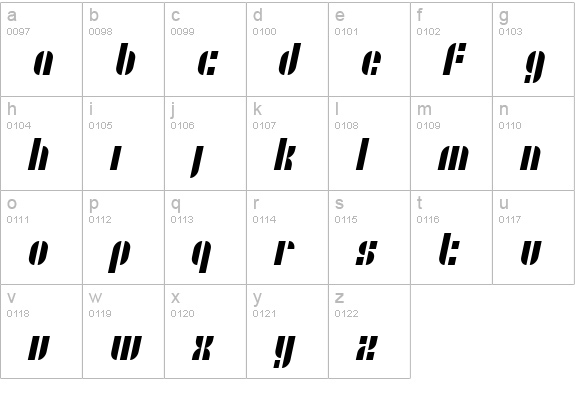
SF RetroSplice Condensed is a distinctive, condensed-width variant in the SF typeface family \xE2\x80\x94 well suited to design and typography projects.
SF RetroSplice Condensed font is a captivating and versatile typeface that effortlessly combines vintage charm with a modern twist. With its condensed design, this font exudes a sense of elegance and sophistication, making it perfect for a wide range of creative projects. The meticulous craftsmanship of SF RetroSplice Condensed font is evident in its beautifully rounded curves and bold, yet refined letterforms. Whether used for headlines, logos, posters, or branding materials, this font is sure to make a lasting impression. What sets SF RetroSplice Condensed font apart is its ability to transport you to a bygone era while still feeling fresh and contemporary. Its retro-inspired aesthetic evokes a sense of nostalgia, taking you on a journey back in time to the glamorous days of the 1950s and 1960s. And the best part? SF RetroSplice Condensed font is available free of charge! That's right, you can freely download this amazing font at FontsMarket.com. Whether you're a professional designer or a hobbyist, this font is a must-have addition to your collection. With its wide range of glyphs and extensive language support, SF RetroSplice Condensed font ensures that your message will be communicated clearly and effectively, no matter the audience. Its versatility allows for seamless integration into various design projects, adding a touch of retro elegance to your creations. So, why wait? Embrace the timeless appeal of SF RetroSplice Condensed font and elevate your designs to new heights. Download it for free at FontsMarket.com and let your creativity soar.